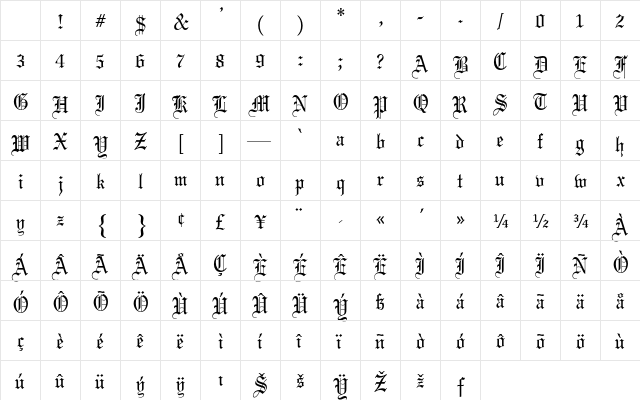
Complete Wedding Text AT Regular glyph index. Displaying only characters natively supported by Wedding Text AT Regular font.
Wedding Text AT is a composed and adaptable typeface that performs quietly and consistently across a wide range of design contexts.